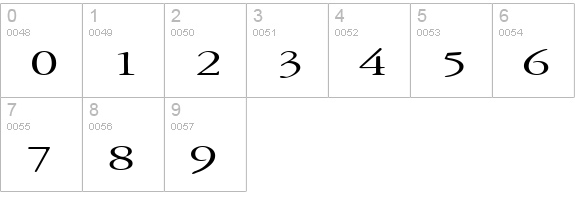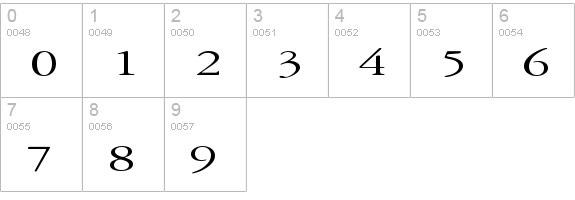
Amery Extended Normal Font Details
Amery Extended Normal is the standard, neutral, extended-width variant in the Amery typeface family \xE2\x80\x94 well suited to general body text, paragraphs, and standard typographic work.
Amery Extended Normal font is a versatile and stylish typeface designed for modern branding, editorial design, and display purposes. With its sleek lines and unique letterforms, this font exudes a sense of sophistication and elegance. The extended character set of Amery allows for a wide range of design possibilities, making it ideal for creating eye-catching headlines and impactful designs. Best of all, Amery Extended Normal font is available for free download at FontsMarket.com. Whether you're a professional designer looking to add a new font to your collection or a hobbyist exploring typography, this font offers a high-quality option at no cost. Don't miss out on the opportunity to enhance your projects with the timeless beauty of Amery Extended Normal font. Download it today and elevate your design work to the next level.